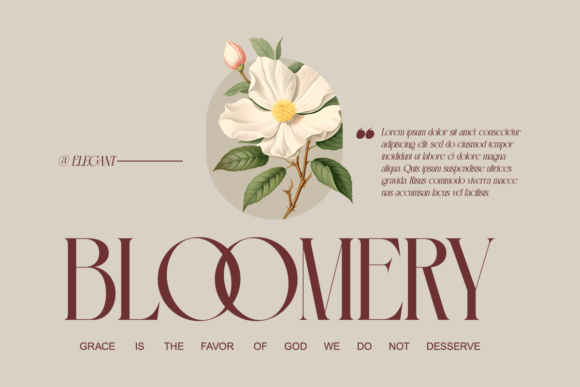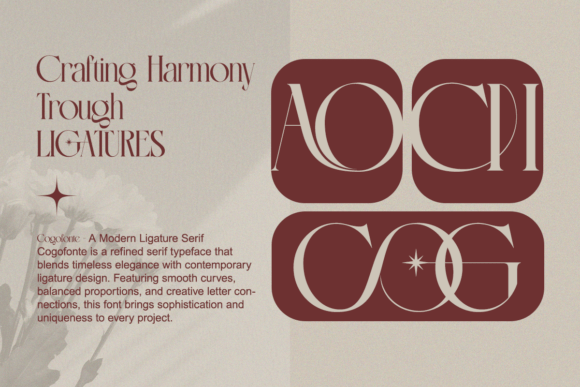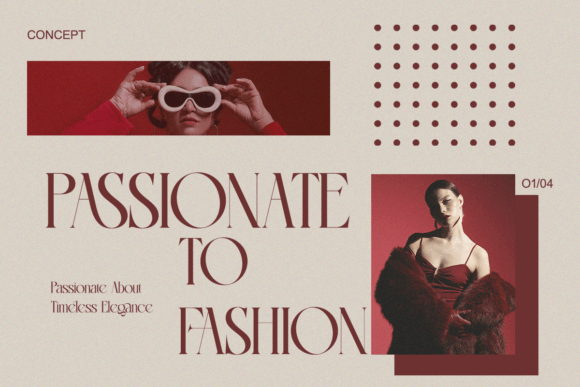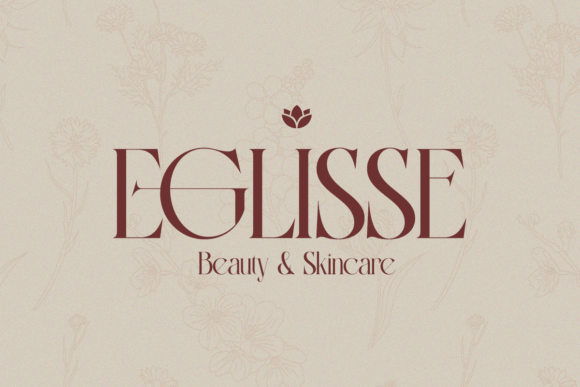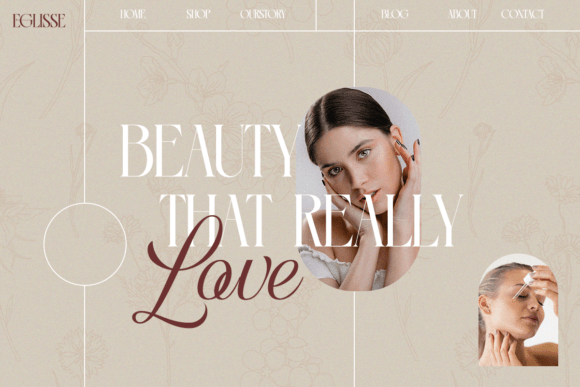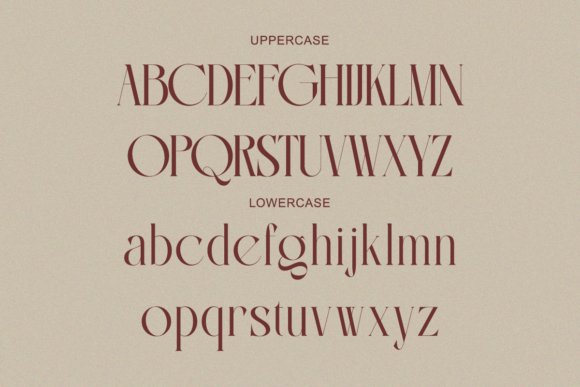
Introduction to Cogofone Font
Remember the thrill of landing the perfect font for your creative project? The moment when everything falls into place, and your design takes on a life of its own? For designers, this is the holy grail of moments – and it’s exactly what the Cogofone Font aims to deliver.
As a design resource, Cogofone Font stands out from the crowd with its elegant geometric balance and classic sophistication. Whether you’re working on a high-end fashion packaging project or crafting a stunning editorial title, this serif typeface is sure to impress. With its refined contrast and smooth alternates, Cogofone Font is the perfect choice for designers who demand the highest quality and a touch of luxury minimalism.
What sets Cogofone Font apart is its versatility – from logos to creative posters, this font is perfect for any project that requires a dash of sophistication and elegance. And the best part? It’s available for free download, making it an invaluable asset for designers who crave a high-quality, transparent background to take their designs to the next level.
Key Features of Cogofone Font
- High-quality, professional design resource suitable for various creative projects.
- Designed with precision and care, resulting in a crisp, clear, and highly legible font.
Honest Review: Cogofone Font
I recently stumbled upon the Cogofone Font, a design resource that’s been making waves in the creative community. As a designer, I’m always on the lookout for high-quality fonts to elevate my projects.
Here’s what I love about the Cogofine Font: ✨ It’s free to download, which is a major plus for indie designers like myself. ✨ The font is highly customizable, with a range of styles and weights to choose from. ✨ It’s also available with a transparent background, making it perfect for graphic design and creative projects.
- Customizable styles and weights
However, I do have a few gripes: ⚠️ The font can be a bit glitchy at times, especially when used in complex designs. ⚠️ The documentation could be more comprehensive, making it harder for beginners to get started.
Overall, I’m impressed with the Cogofone Font. It’s a great addition to any designer’s toolkit, and I’d definitely recommend it to fellow creatives.
To maximize the potential of the Cogofone Font, experiment with different font sizes, colors, and combinations. You can also use it as a base font and pair it with other design elements for a unique and creative look.
The Cogofone Font is ideal for various design projects, including:
- Business presentations
- Website design
- Print media